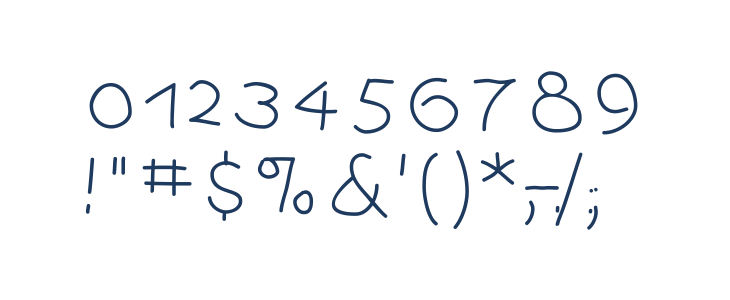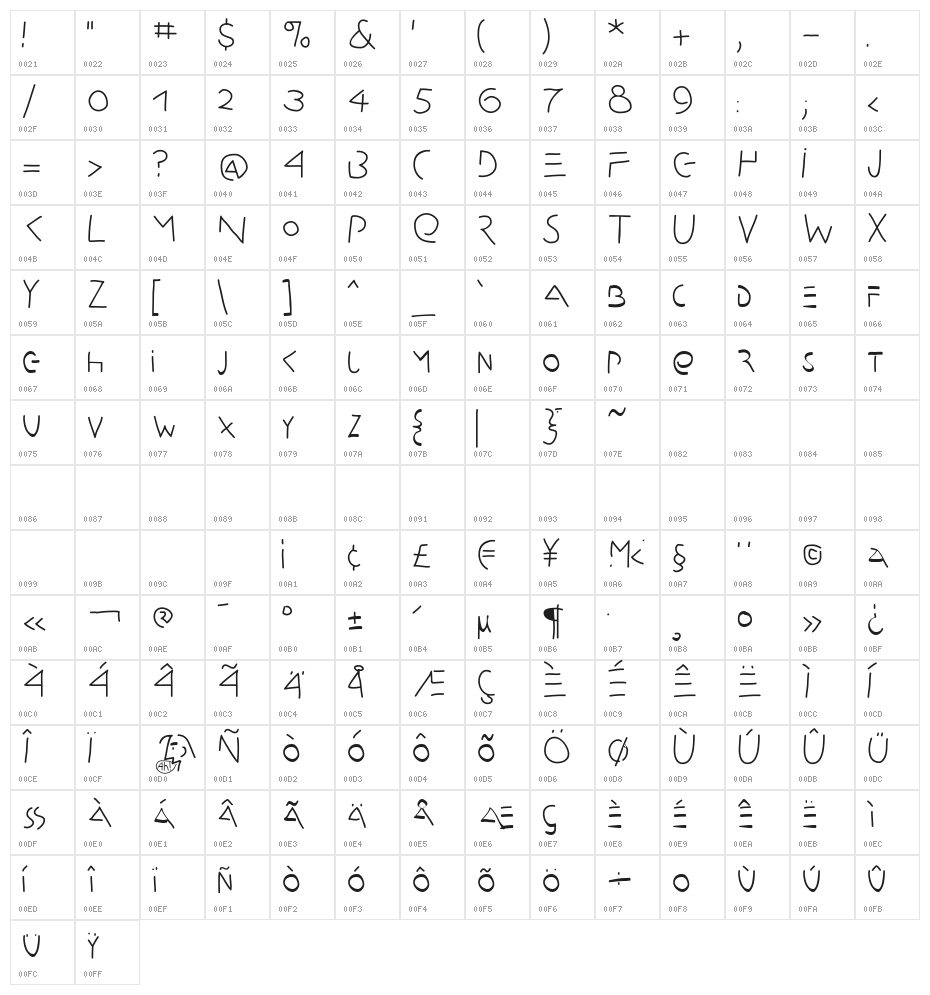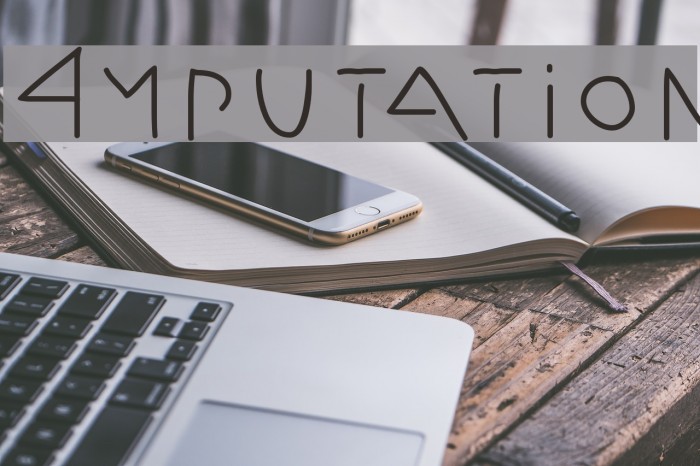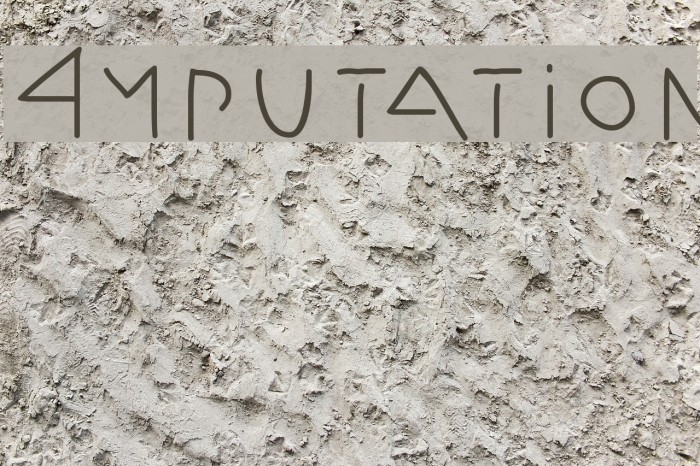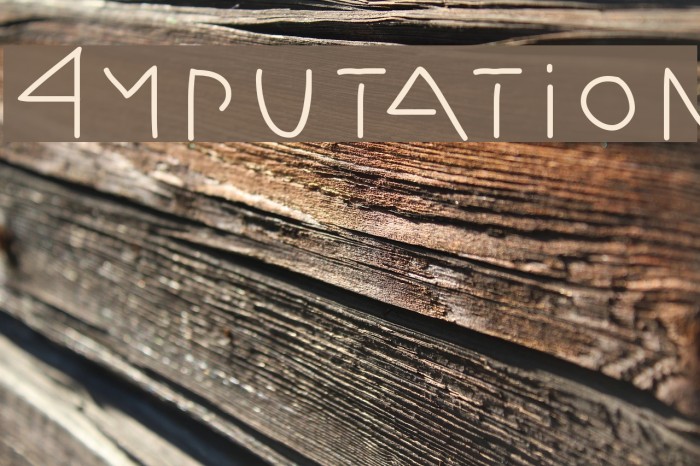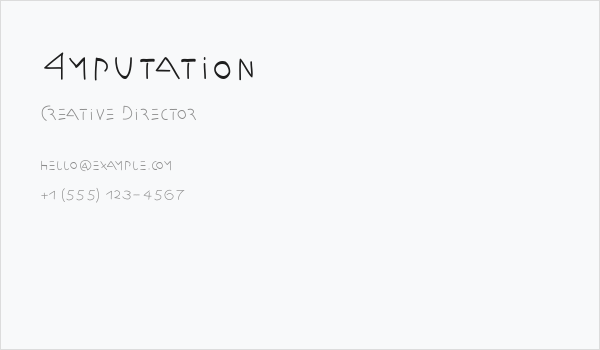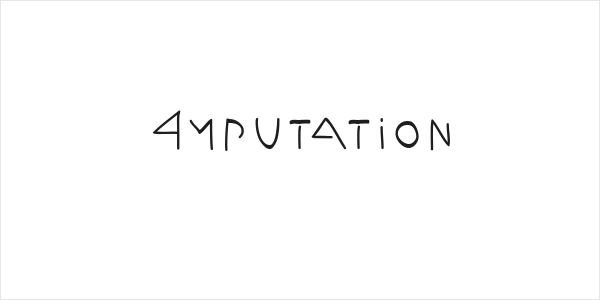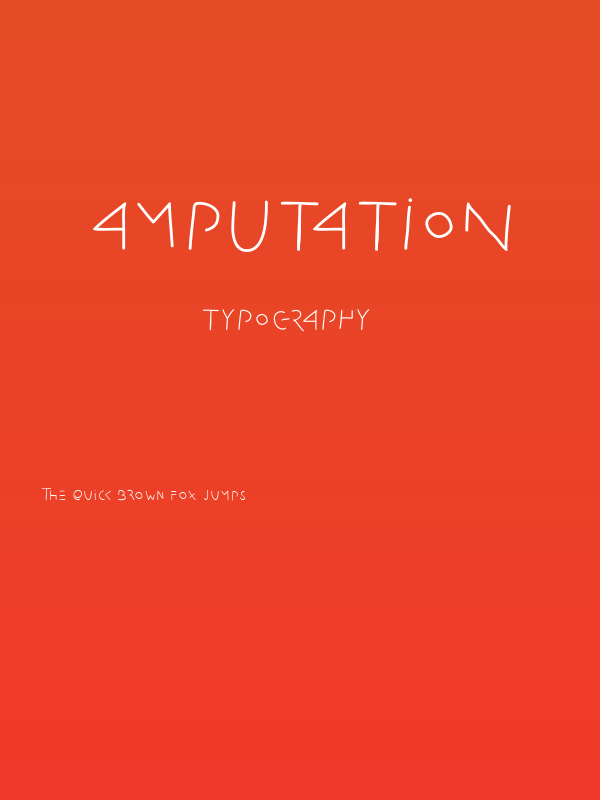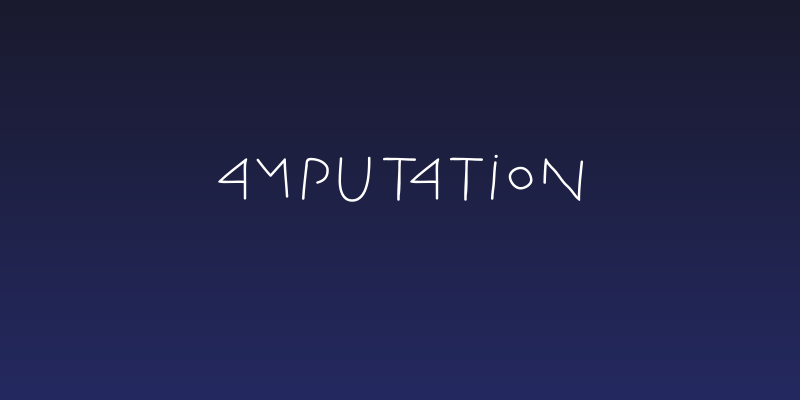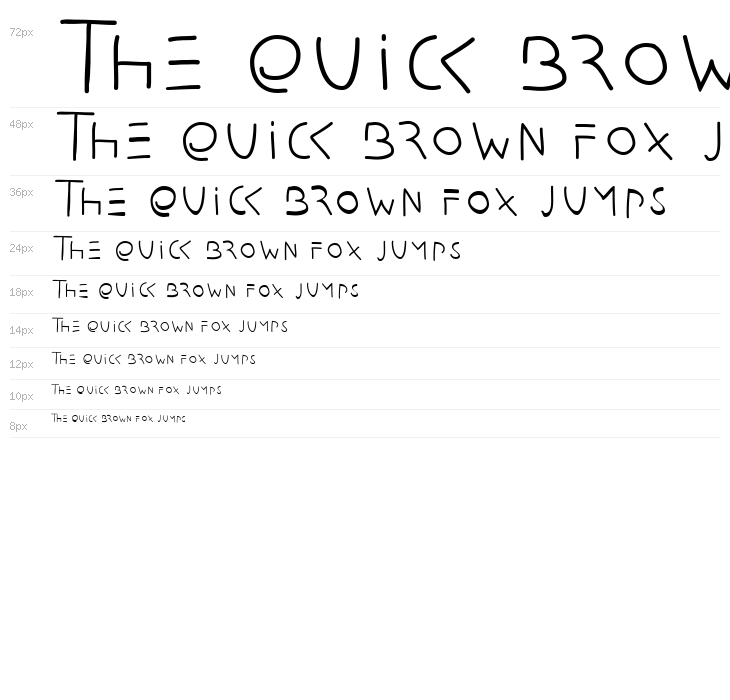
Amputation Font
Amputation Description
This font features a playful and quirky design, characterized by its uneven strokes and informal style. The letters have a hand-drawn appearance, with a mix of straight and curved lines that give it a unique and artistic flair. The uppercase and lowercase letters maintain a consistent style, with a slightly irregular baseline that adds to its charm. Numbers and special characters follow the same whimsical design, making it suitable for creative and casual projects. The overall look is modern and fresh, with a touch of spontaneity.
| Proposed Projects | Ideal for children's books, creative posters, casual branding, and artistic invitations. |